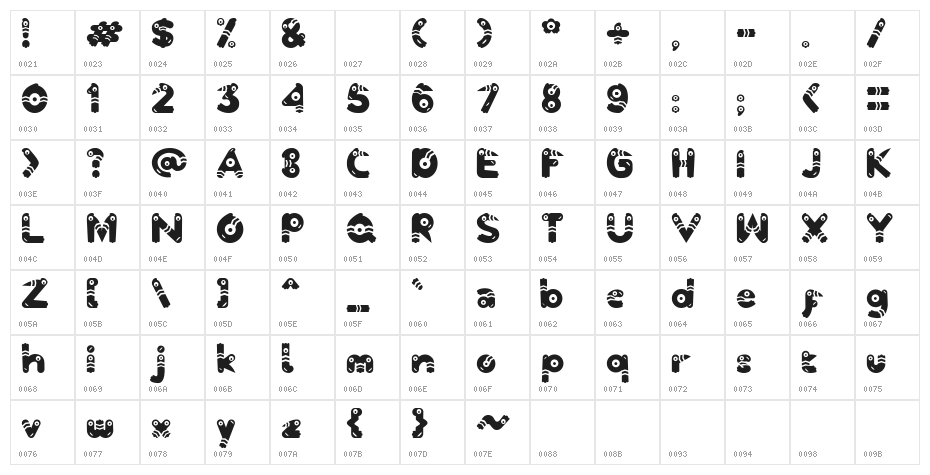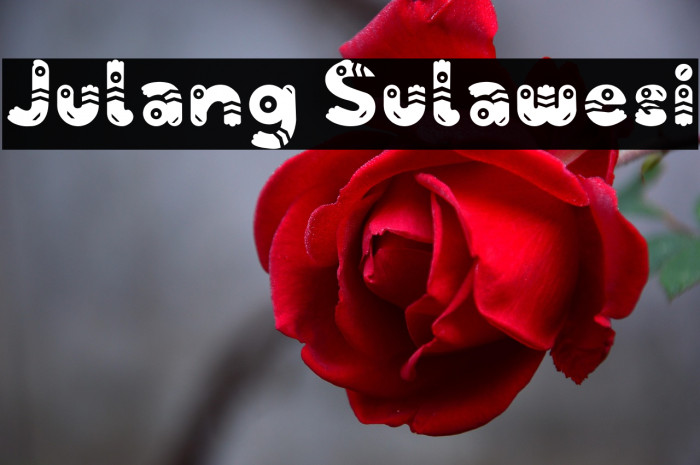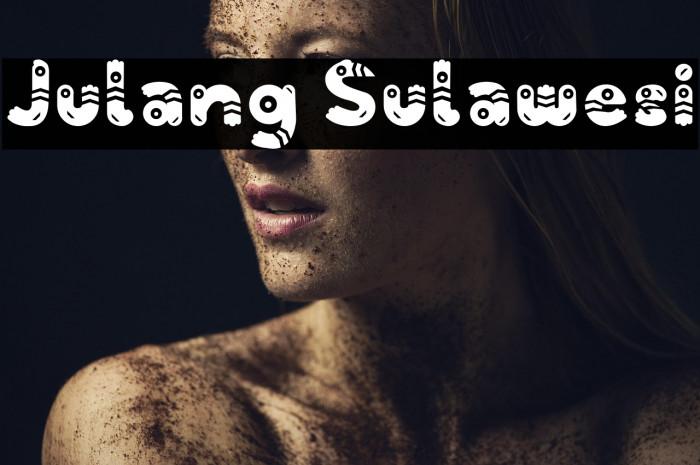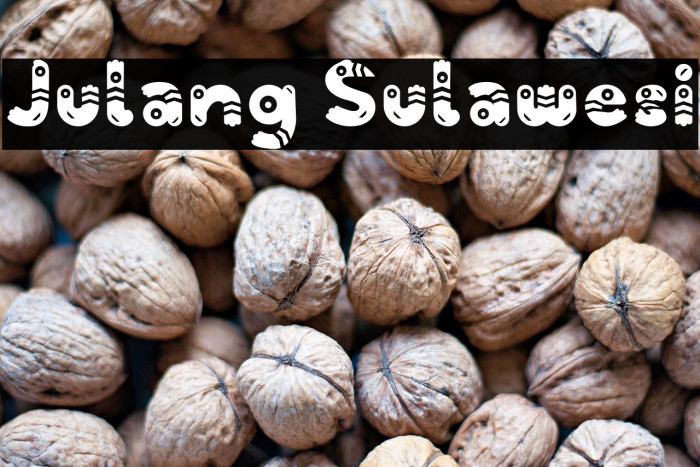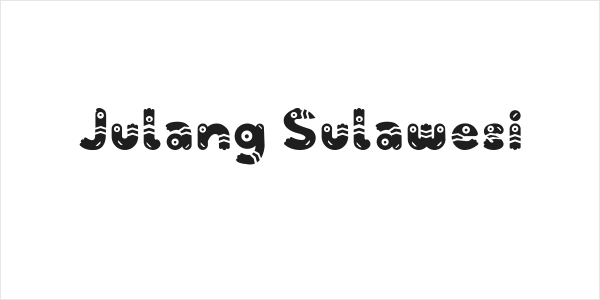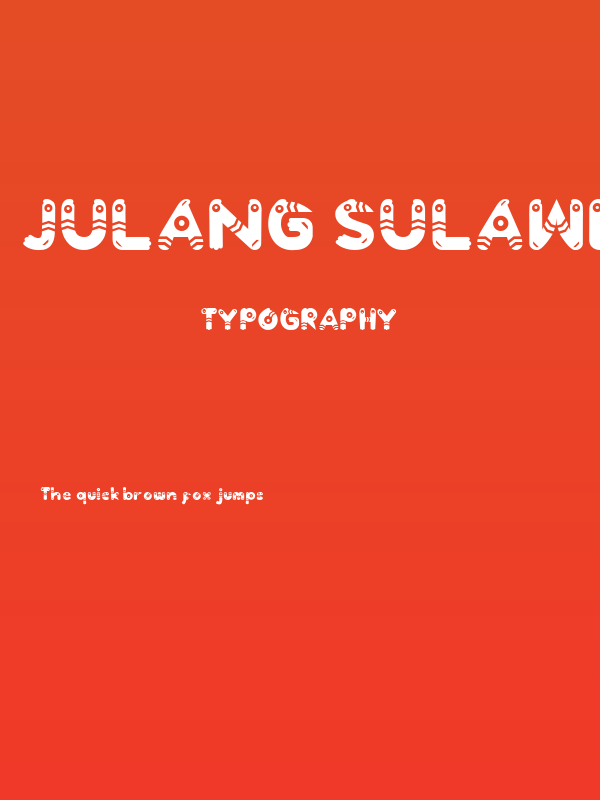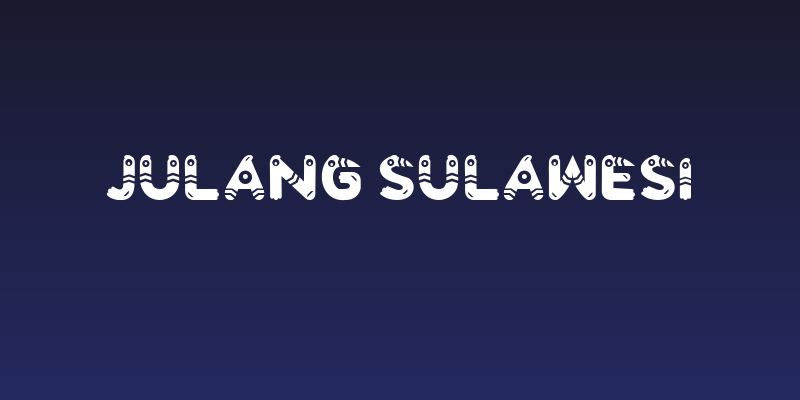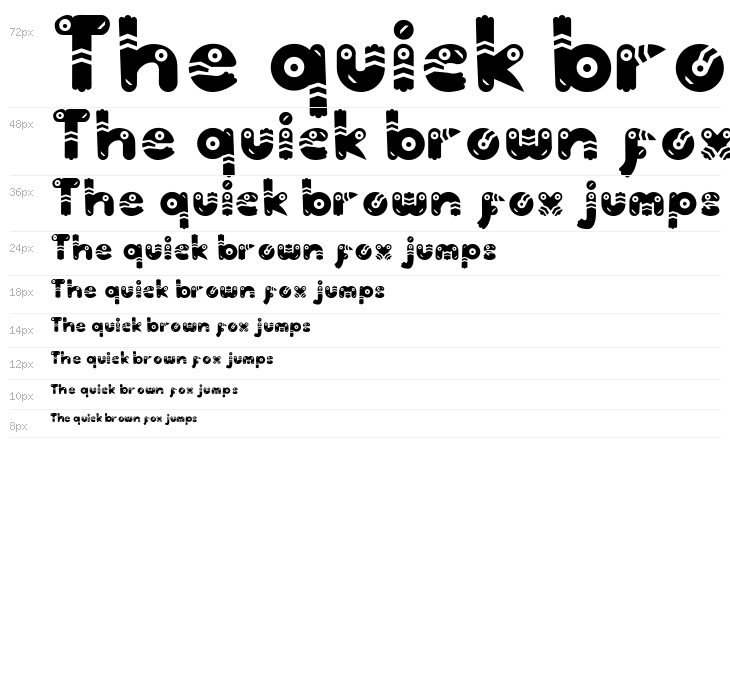
Julang Sulawesi Font
Julang Sulawesi Description
This font features a playful and decorative style, incorporating elements that resemble bird motifs within each character. The letters are bold and rounded, with unique cutouts and patterns that add a whimsical touch. The design is consistent across uppercase, lowercase, numbers, and special characters, making it visually cohesive. The font's distinct style makes it stand out, with each character appearing as a piece of art. The intricate details and bold shapes suggest a theme inspired by nature or wildlife, making it suitable for creative and themed projects.
| Proposed Projects | Ideal for children's books, nature-themed posters, playful branding, and creative invitations. |